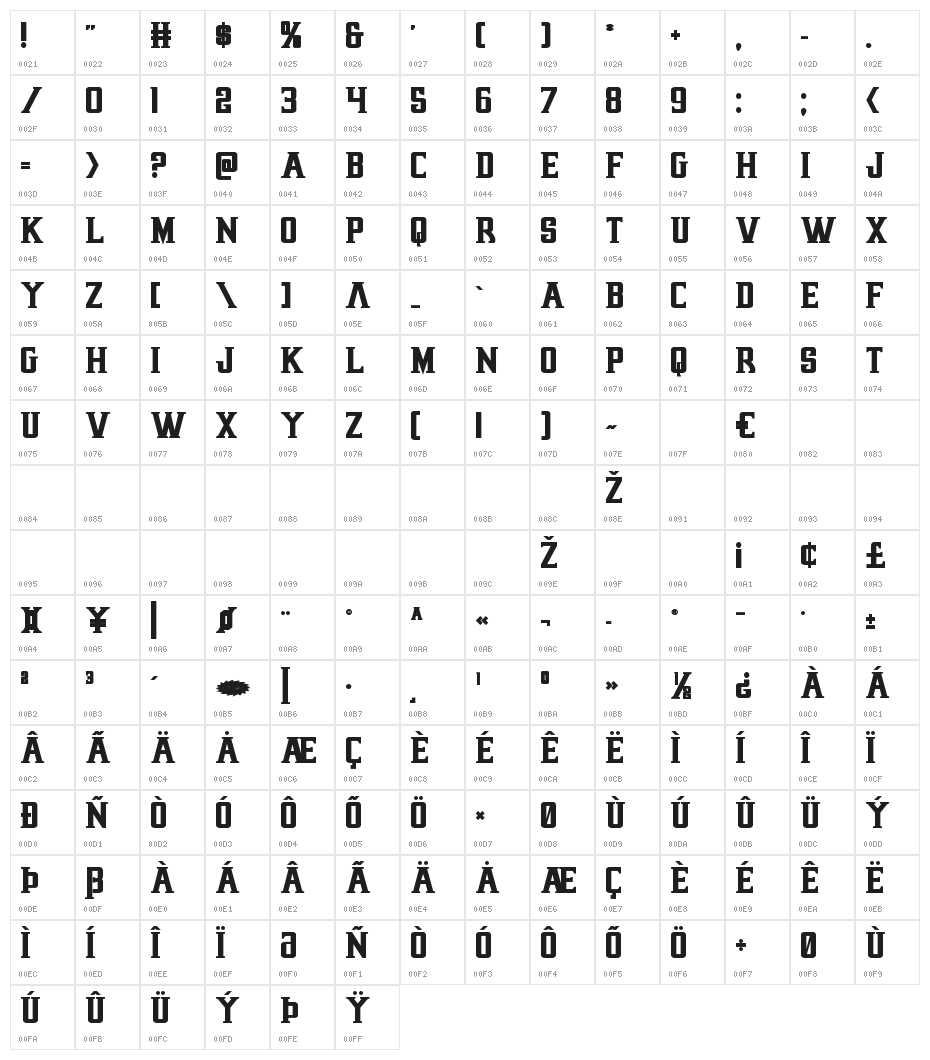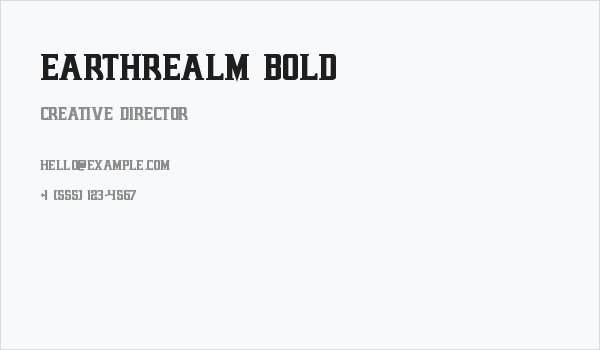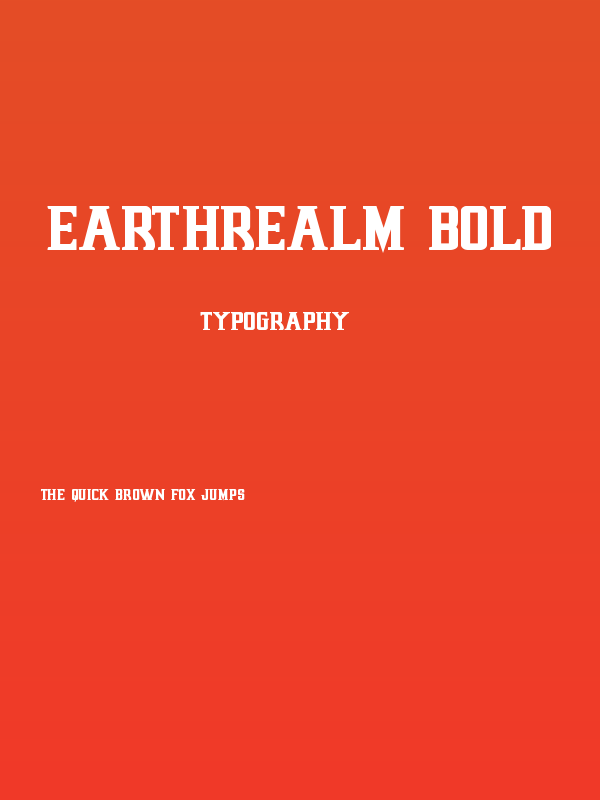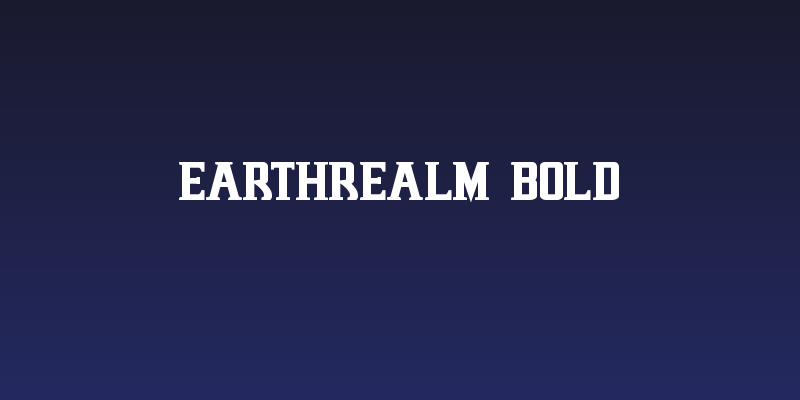
Earthrealm Bold Font
Earthrealm Bold Description
This font features a bold and strong presence with a distinct slab serif style. The characters are robust, with thick strokes and sharp edges, giving it a commanding and authoritative look. The uppercase and lowercase letters maintain a consistent weight, enhancing readability while retaining a decorative flair. The numerals are equally bold, ensuring they stand out in any design. Special characters are designed with the same boldness, making them suitable for impactful statements. The overall design is modern yet reminiscent of classic serif fonts, making it versatile for various applications.
Proposed ProjectsIdeal for headlines, posters, branding, and any design requiring a strong, impactful typeface.